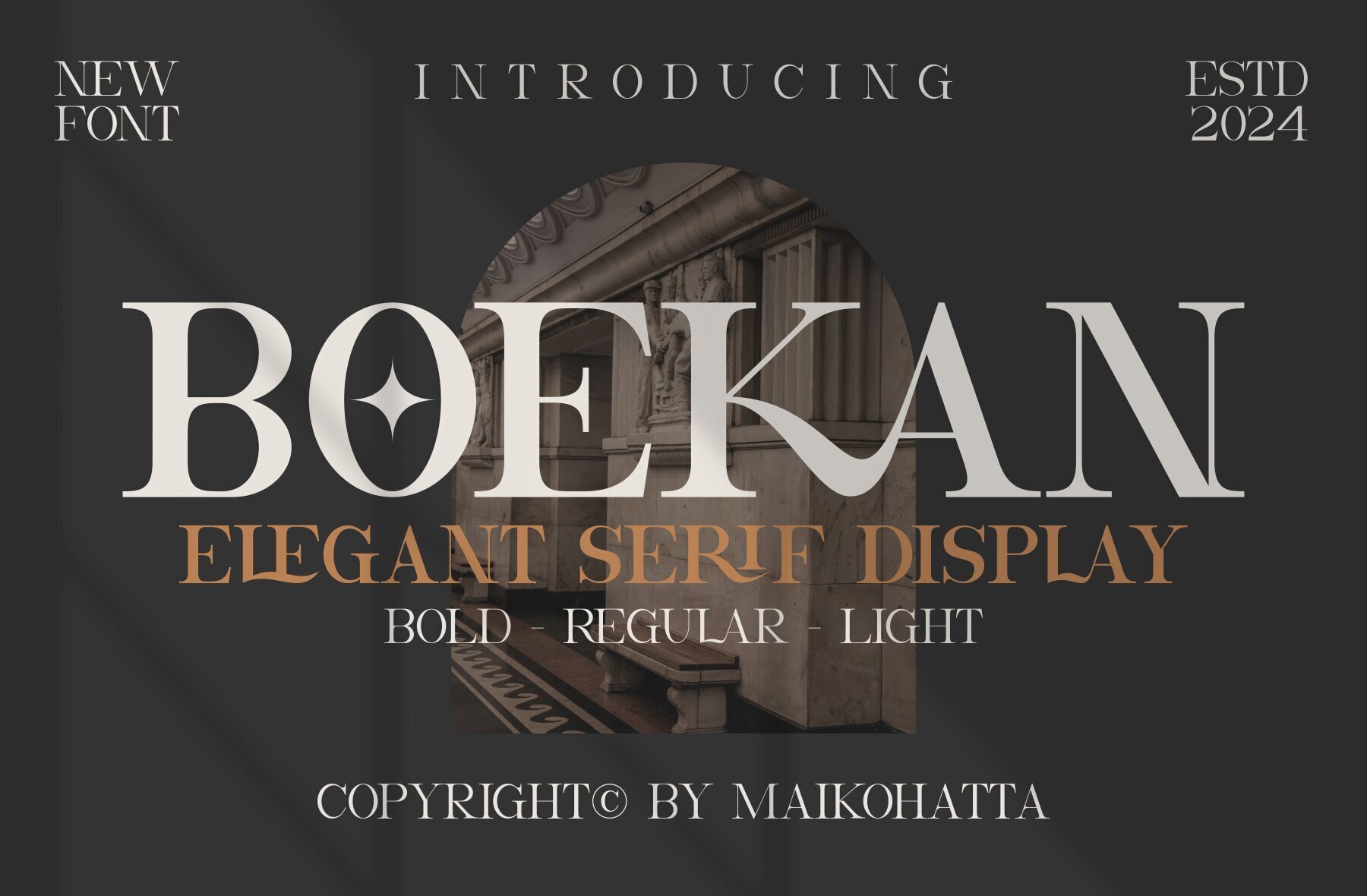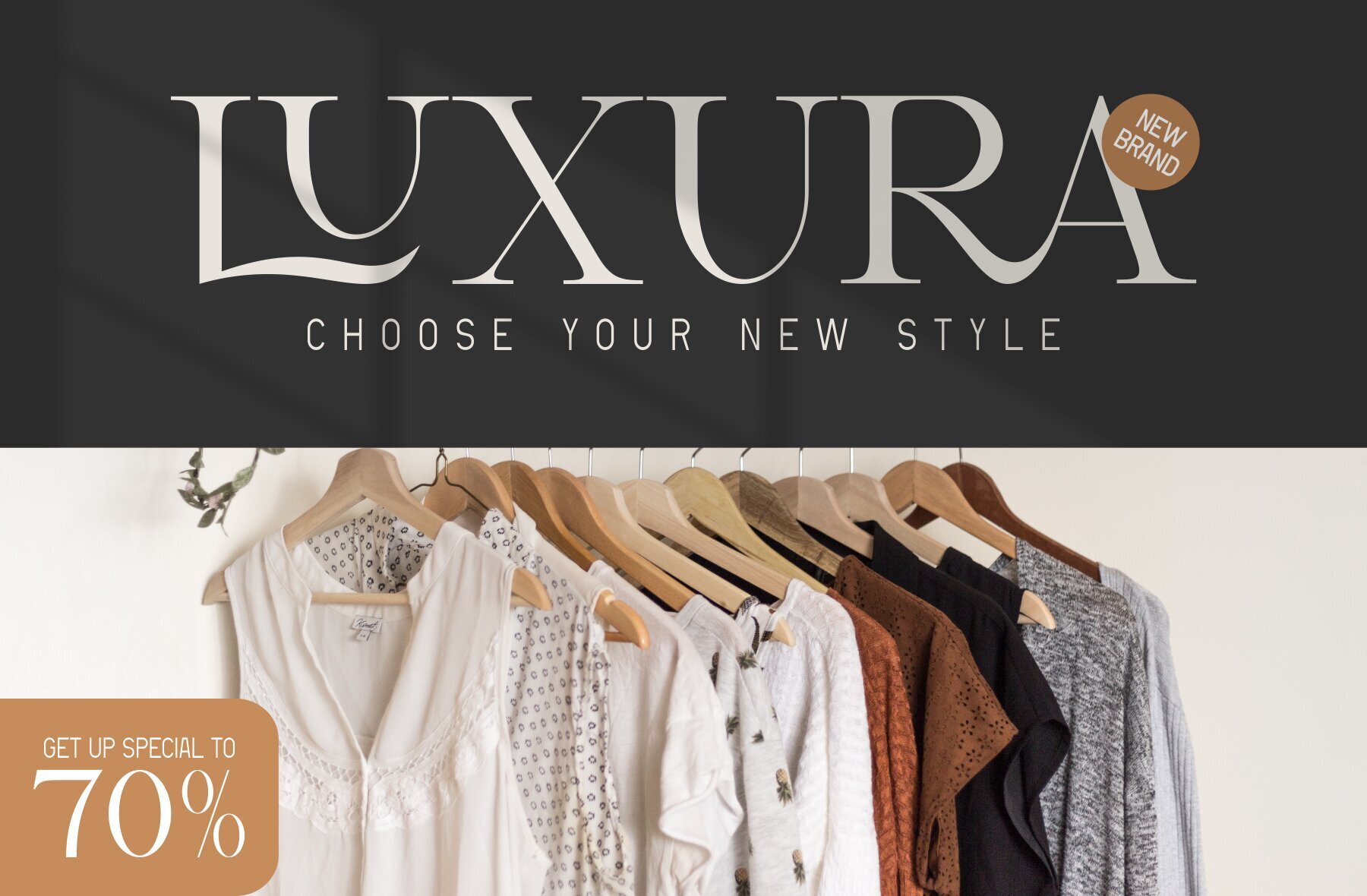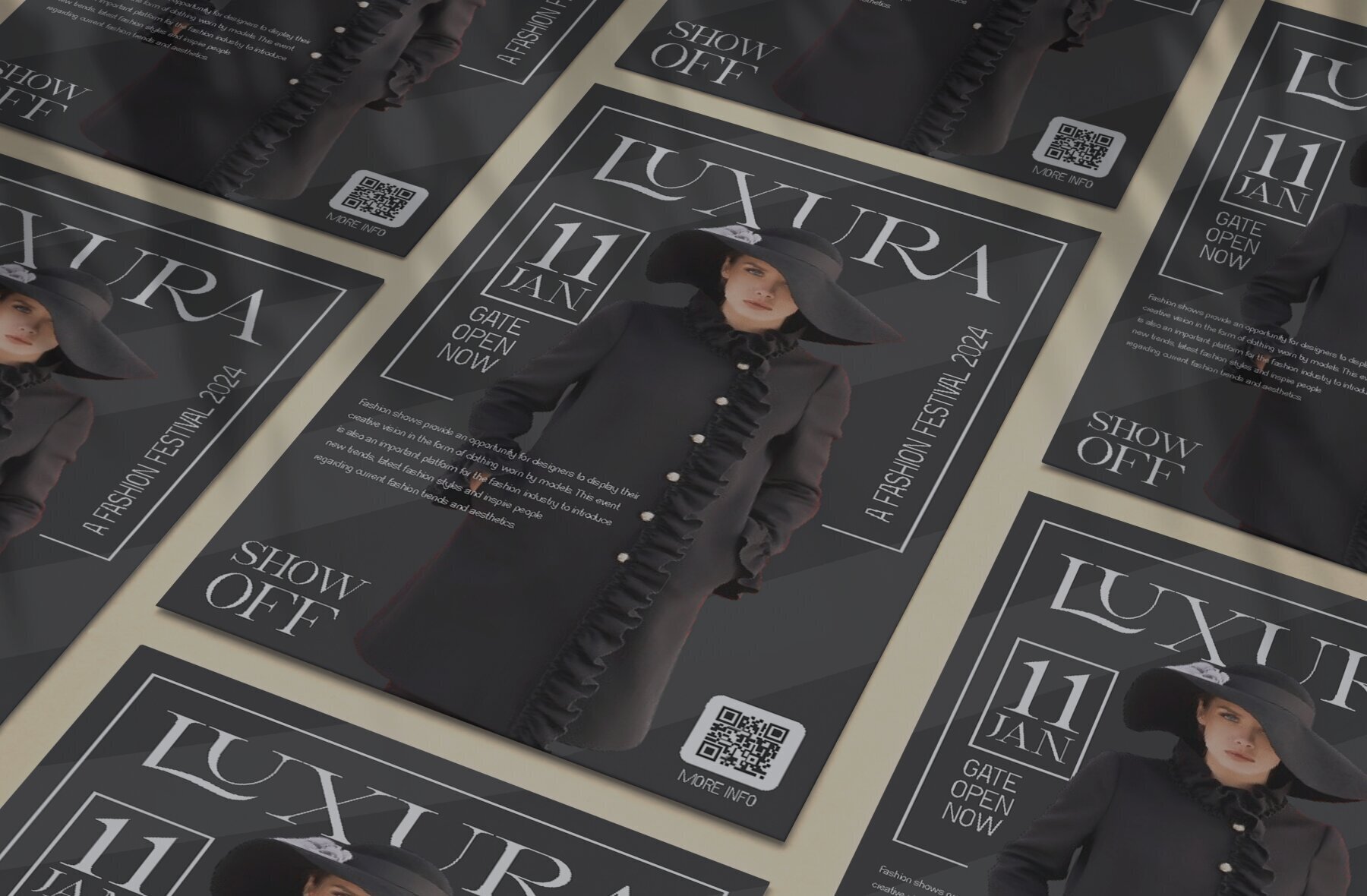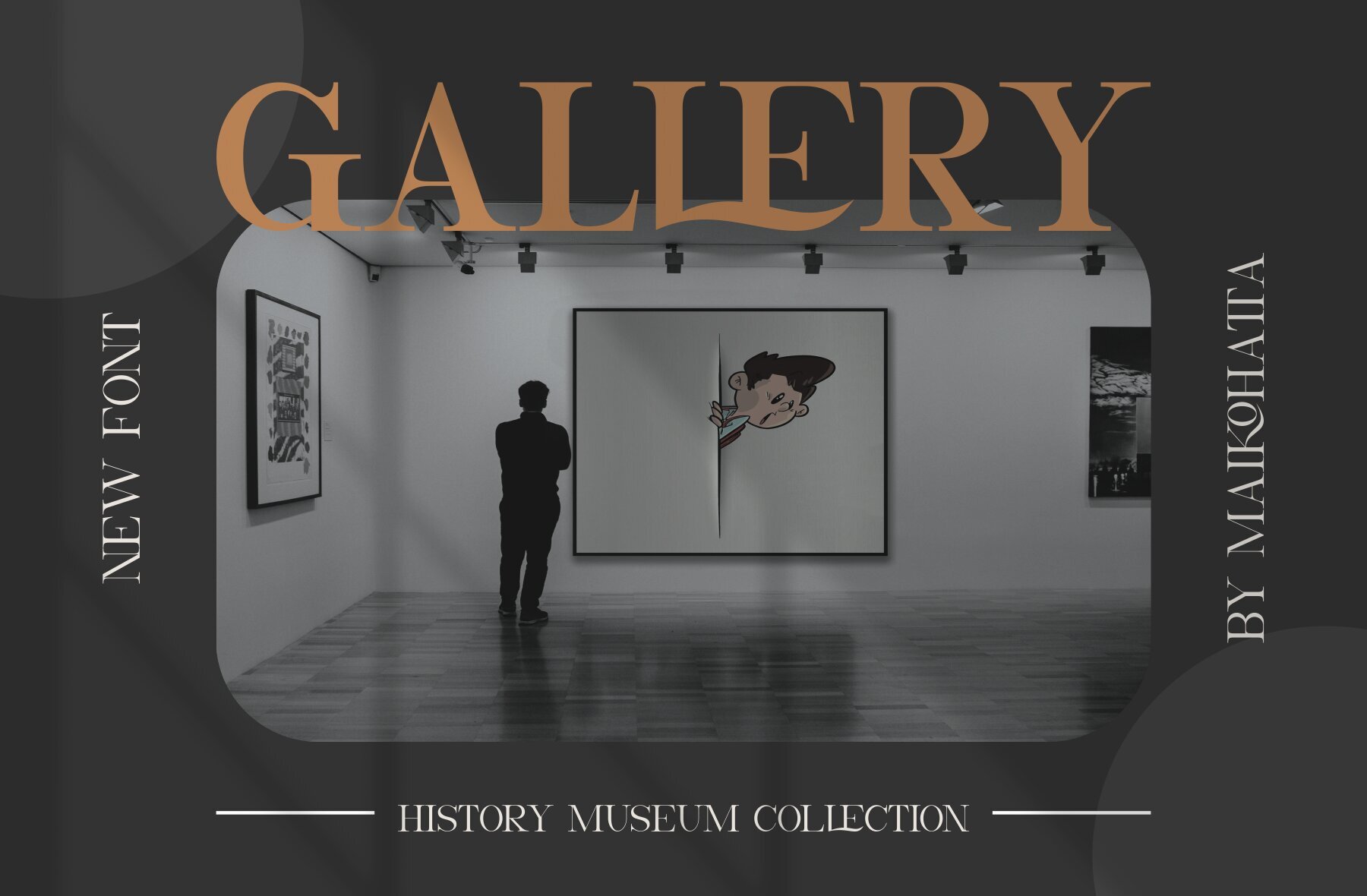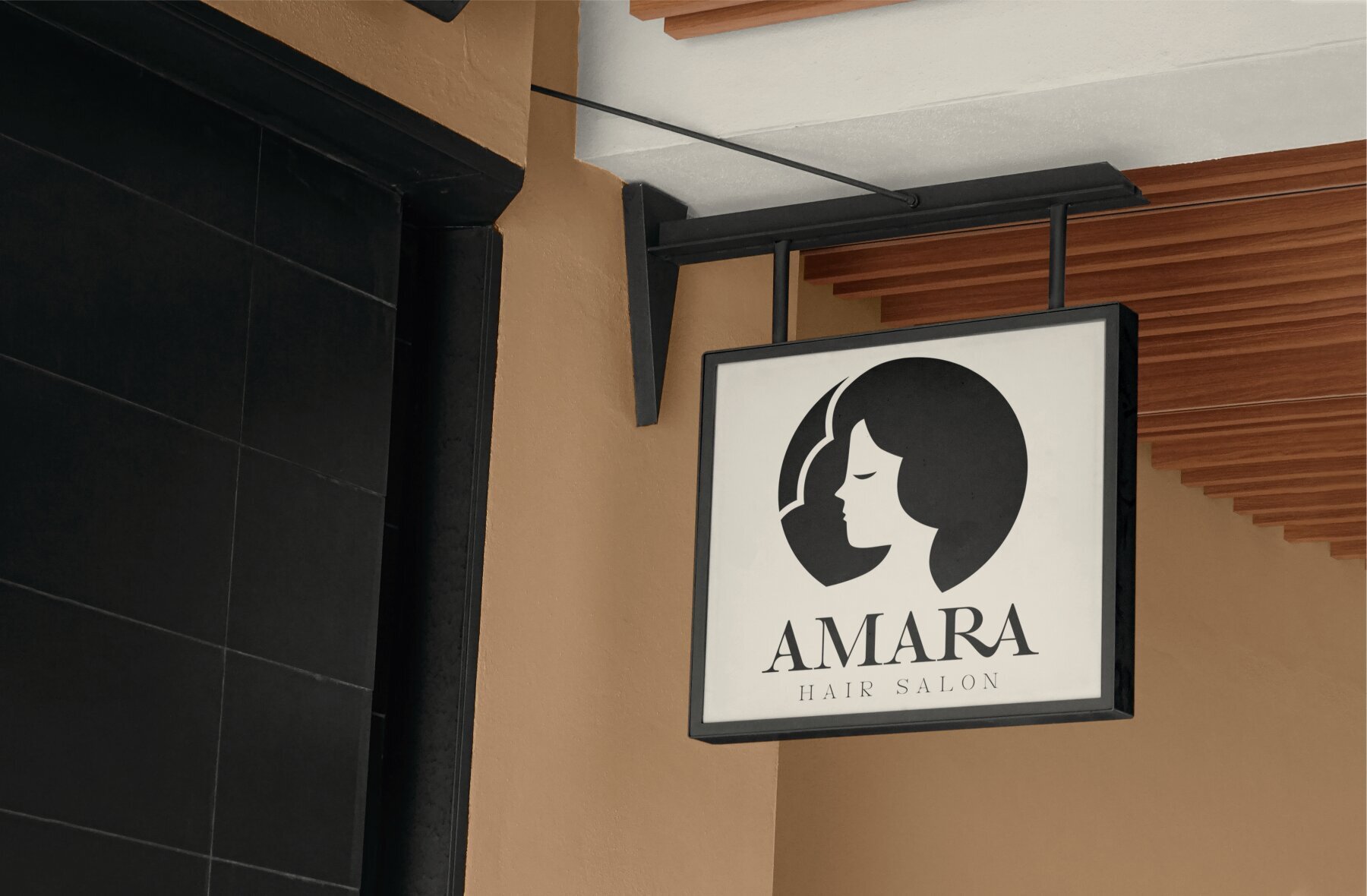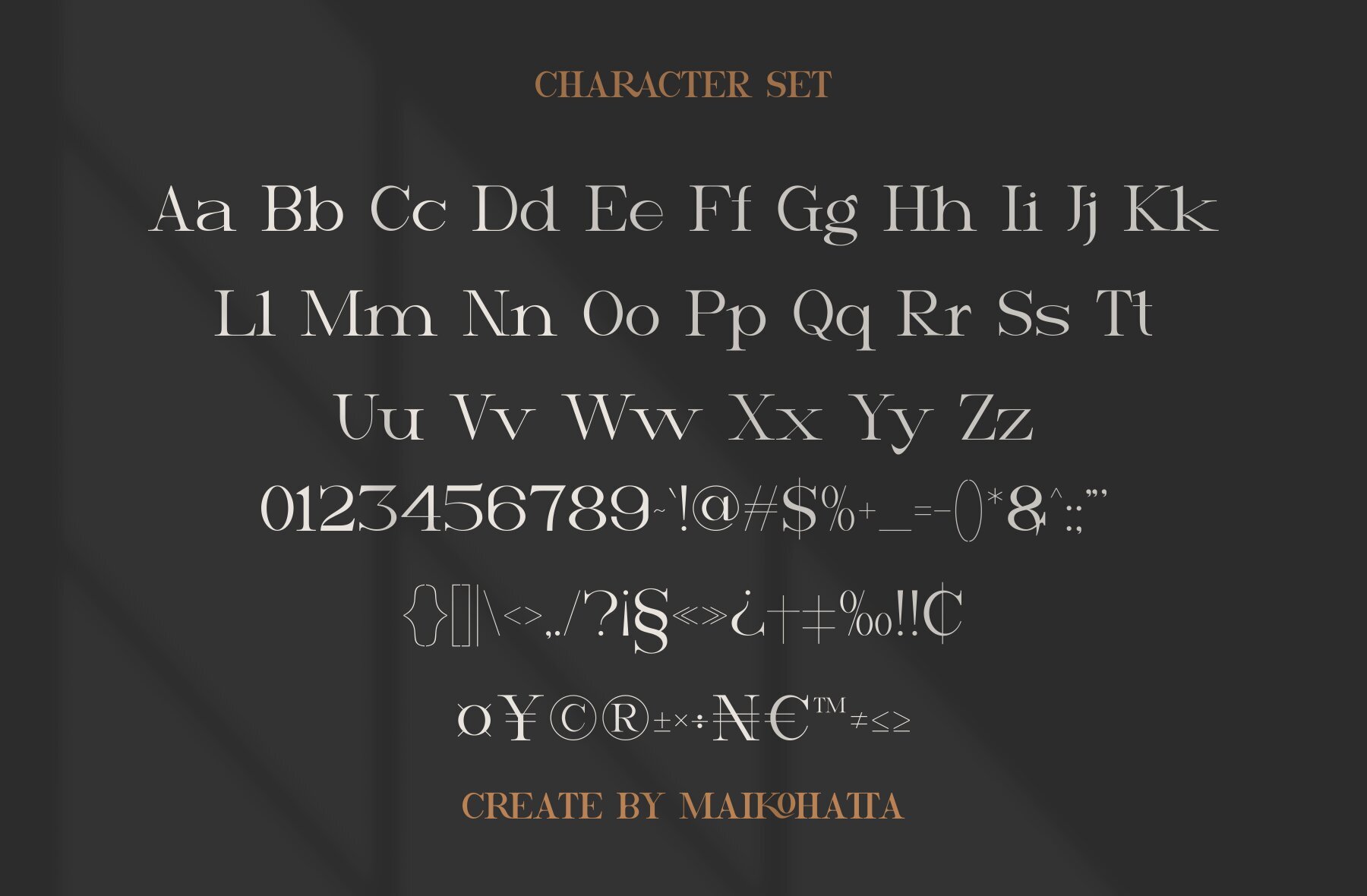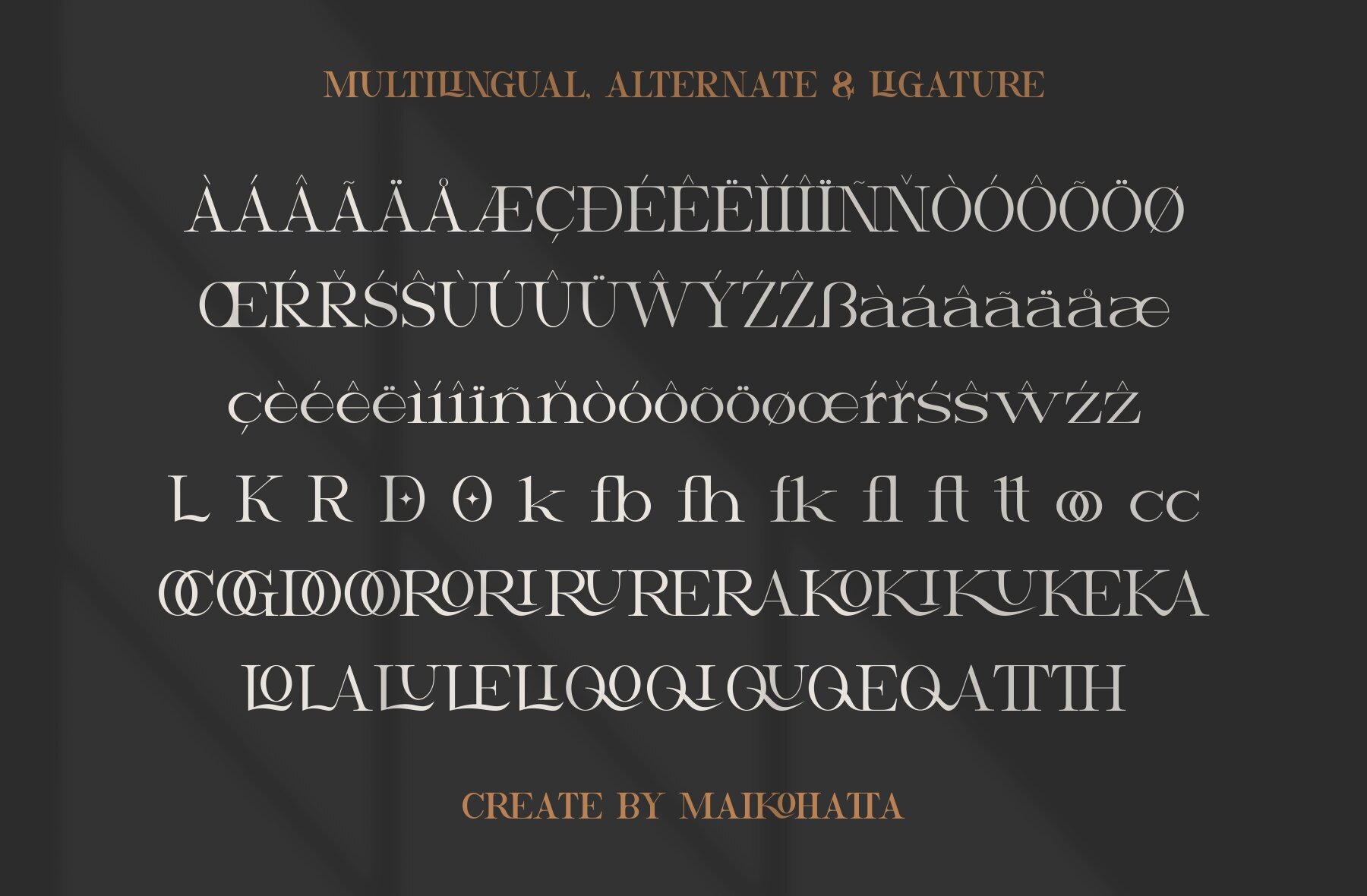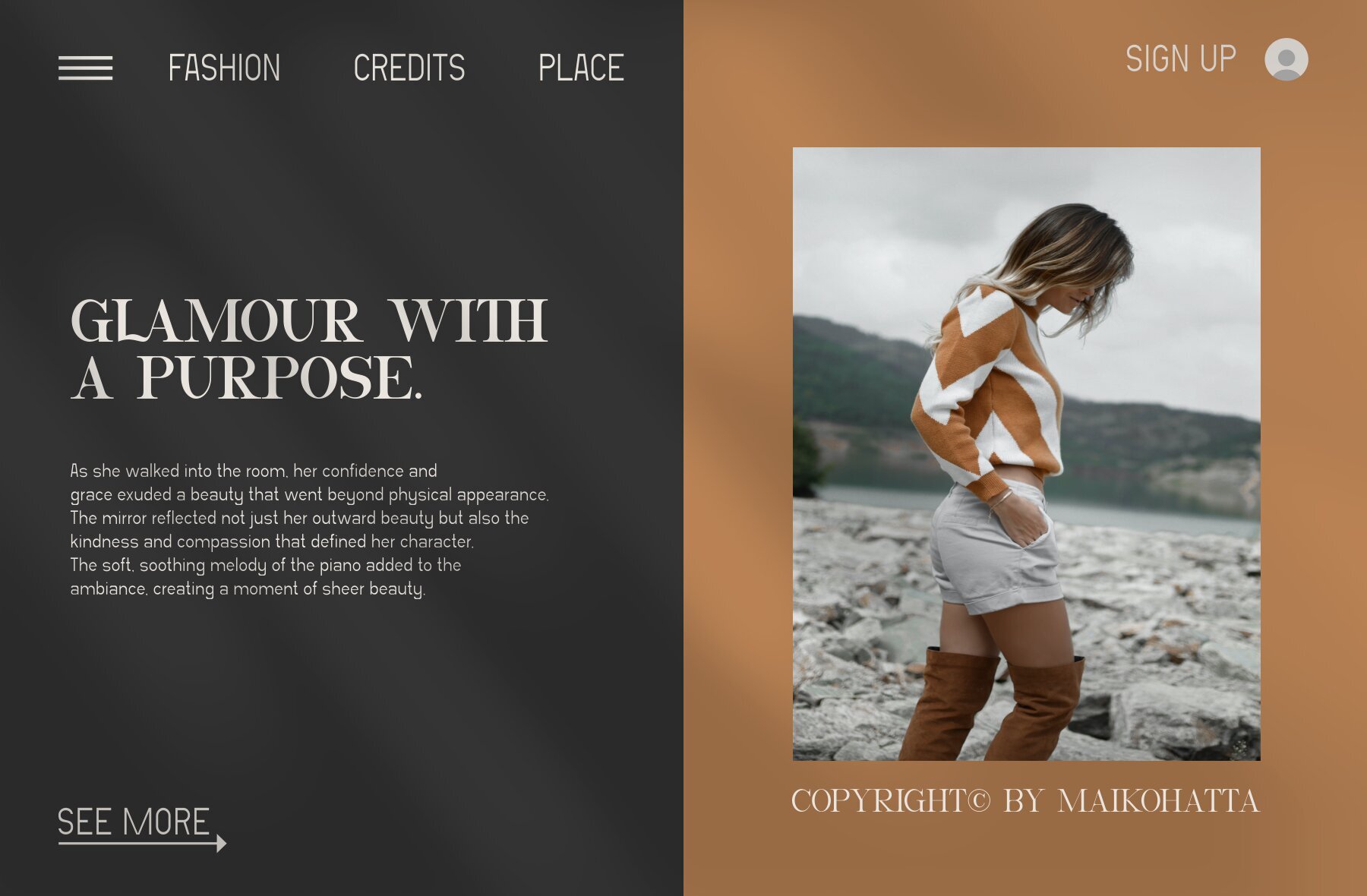
Boekan Font
Boekan is a serif display font crafted to evoke luxury, elegance, and firmness. This typeface combines unique design features to create a sophisticated impression.Boekan: Elegant Serif Display with Luxurious Charm